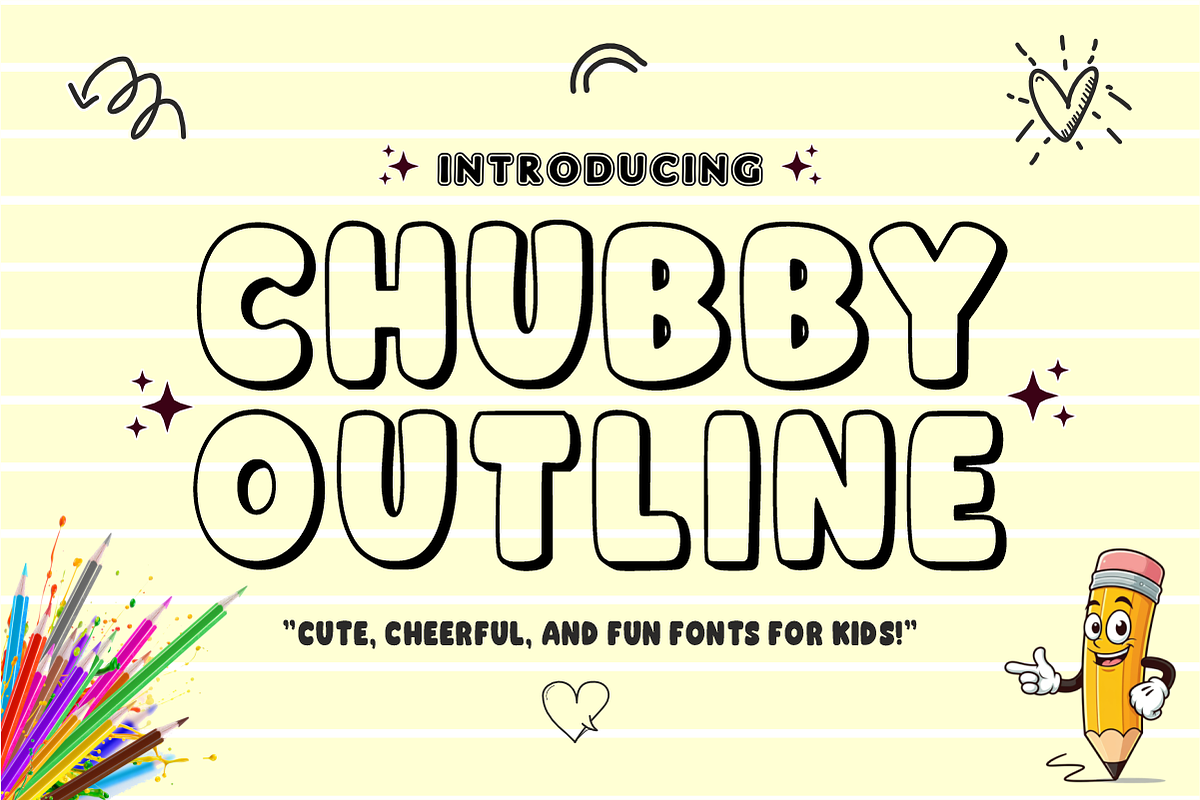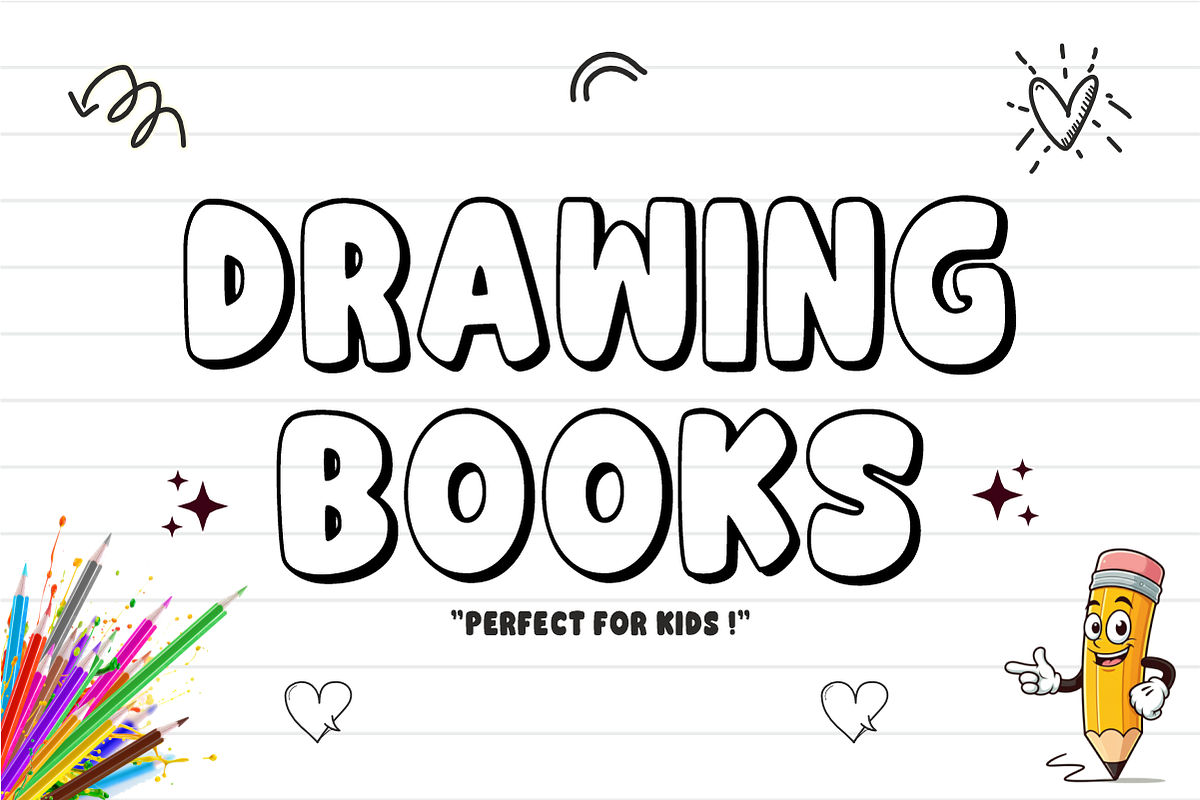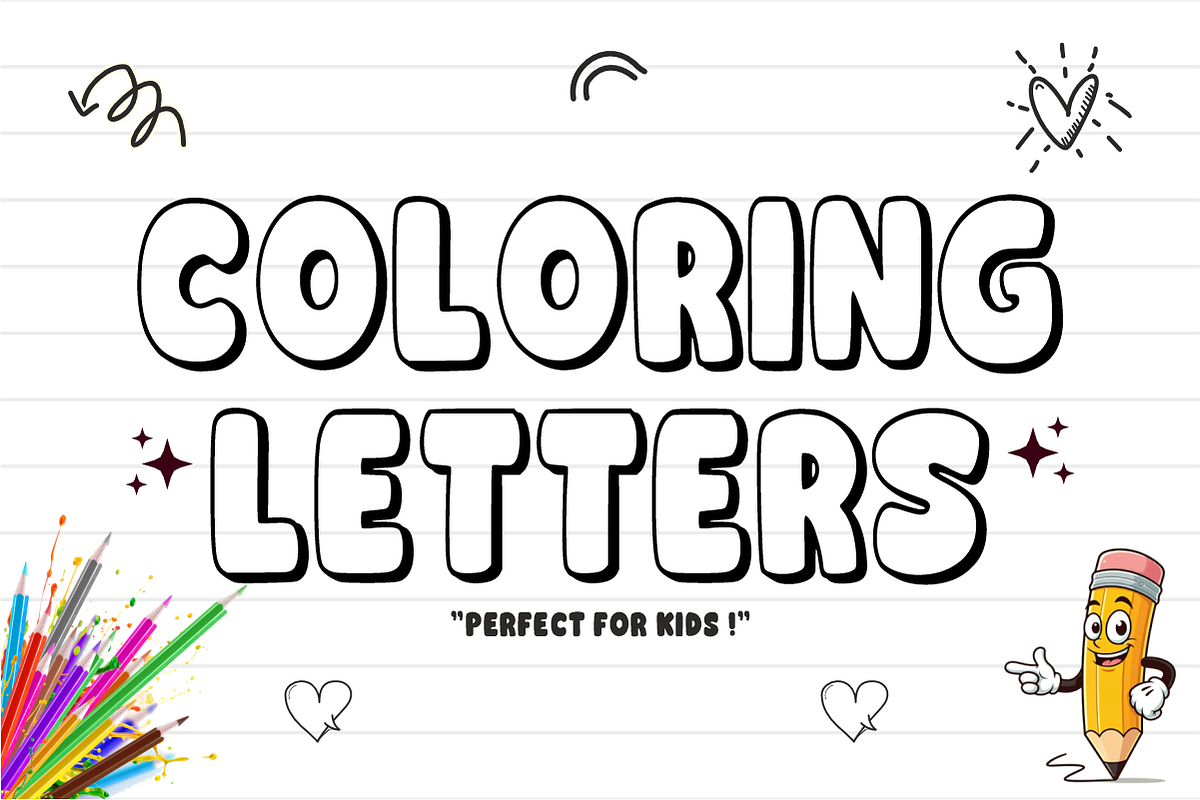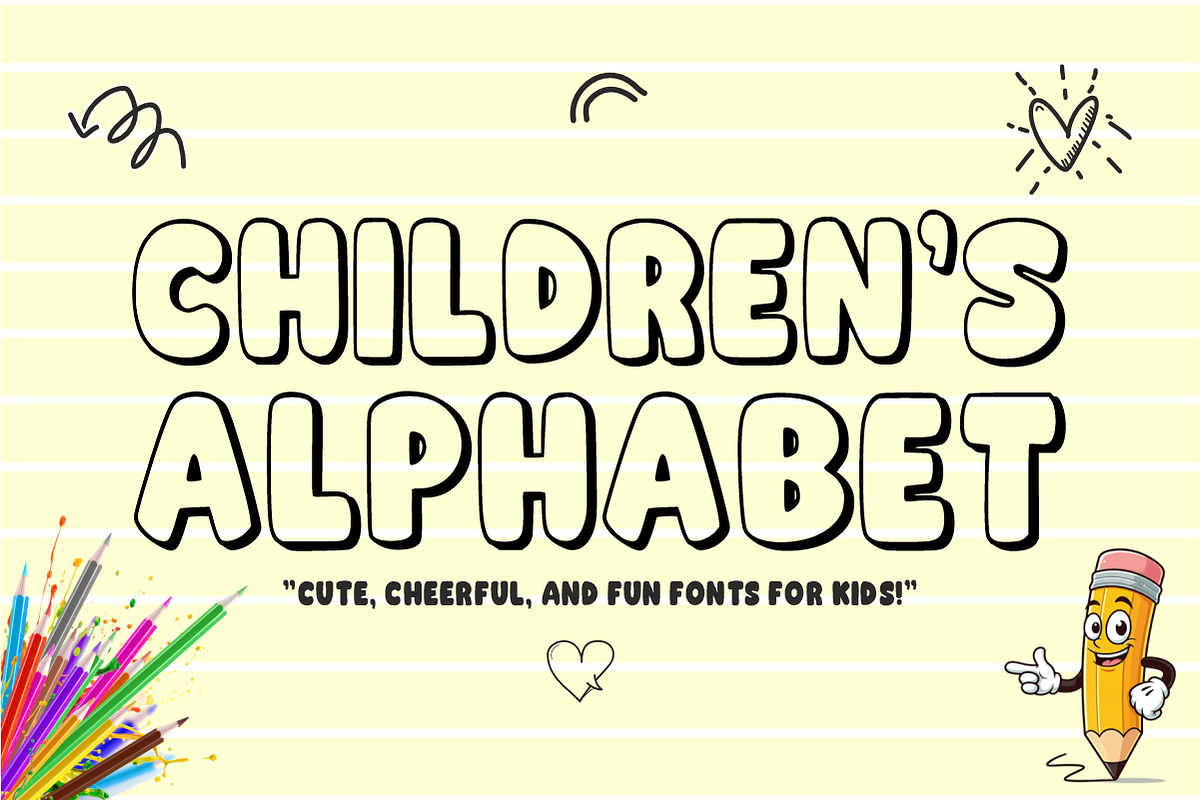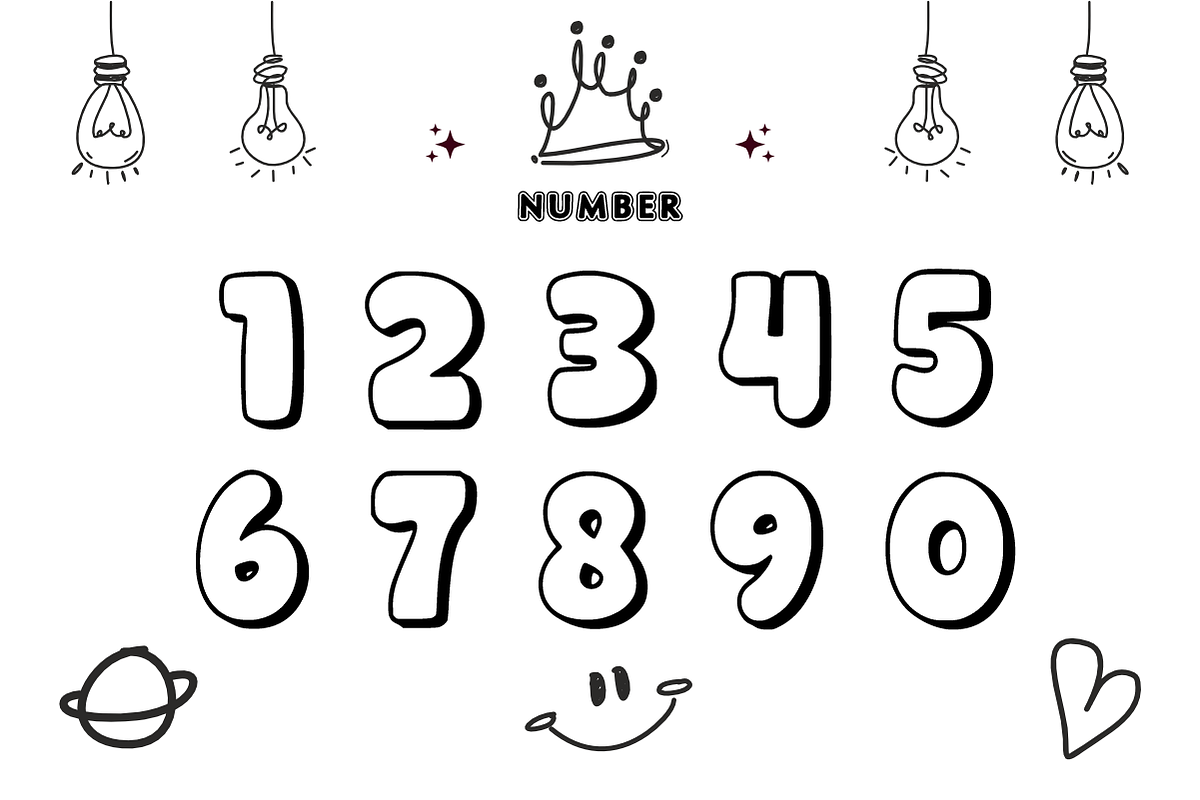
Chubby Outline- Fun Kids Bubble Font
Chubby Outline - Fun Kids Bubble Font
Chubby Outline is a playful, rounded bubble font with a clean outer stroke. Designed specifically for children's products, school projects, and custom crafts, this thick display font adds a friendly and cheerful look to any headline or packaging. It is fully vectorized to ensure smooth, easy weed cuts on digital cutting machines like Cricut and Silhouette.
Ideal For:
Classroom materials and teacher resources
Custom stickers and planner decals
Cricut and Silhouette vinyl crafts
Kids' apparel and t-shirt prints
Children's book covers and logos
Birthday party banners and invitations